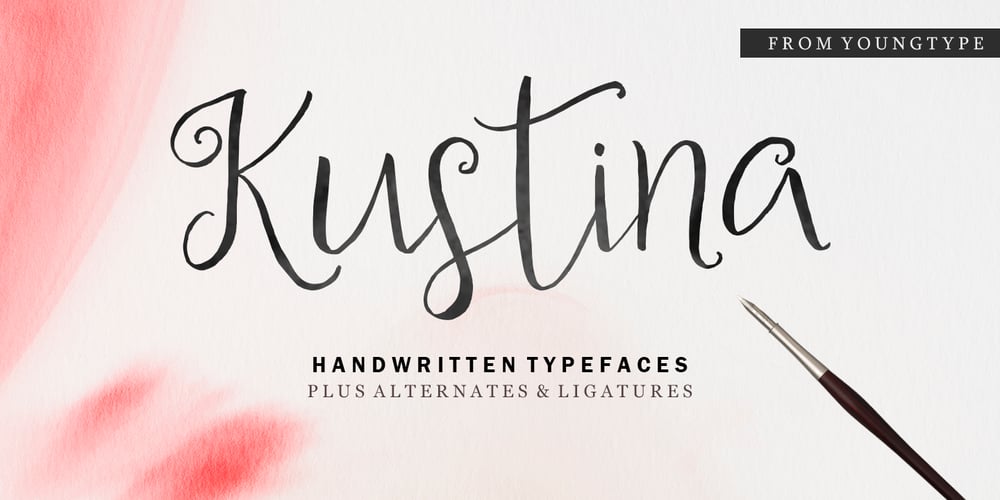
Kustina
Kustina font
Kustina Font Family was designed by Naufal Paramata and published by Youngtype. Kustina contains 1 styles and family package options. Kustina Script is a hand brush font made with brushes and ink. This typeface is ideal for use in thick watercolor designs or handwriting styles, such as blog titles, posters, wedding elements, t-shirts, clothing, book covers, business cards, greeting cards, branding, merchandise etc.How to access all alternative characters, using Windows Character Map with Photoshop:https://www.youtube.com/watch?v=Go9vacoYmBwHow to access all alternative characters using Adobe Illustrator:https://www.youtube.com/watch?v=XzwjMkbB-wQThank you!